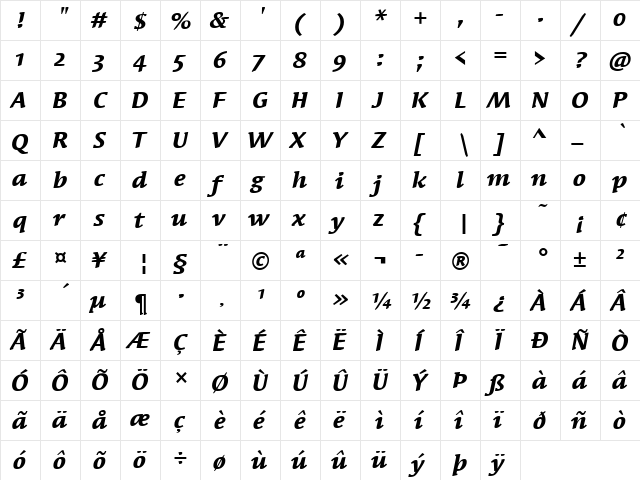
SyndorOSITC Bold Italic
Design Context for SyndorOSITC Typeface
SyndorOSITC is a composed and adaptable typeface that performs quietly and consistently across a wide range of design contexts. Its italic angle brings a sense of urgency and motion to the letterforms. Its bold stroke weight gives it real presence on the page.
Pro Tip: Try SyndorOSITC for annotation and caption copy alongside an upright companion — the contrast in angle creates a dynamic but ordered typographic system.